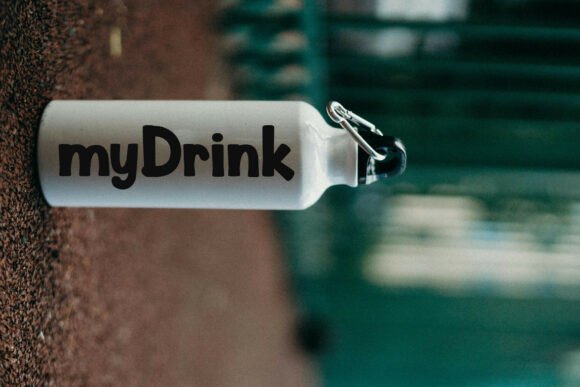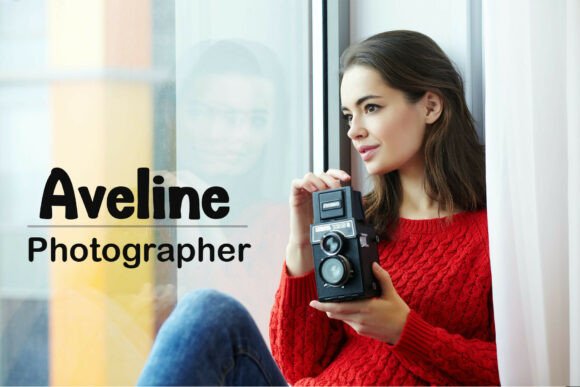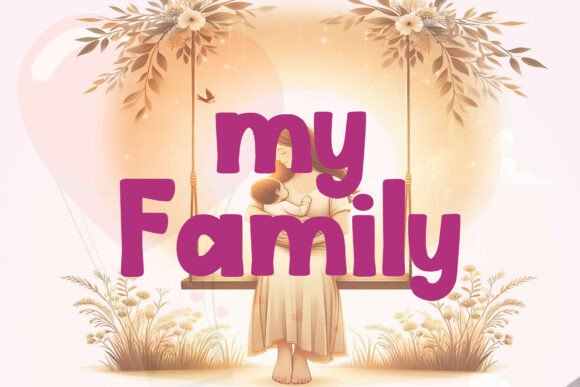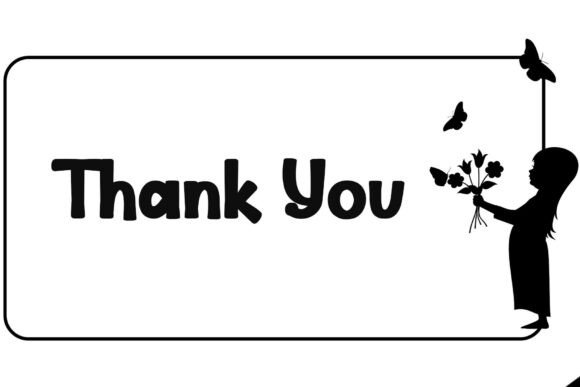
Introduction to Sending Sweet Font
Sending Sweet is a sweet and beautiful handwritten font.
Featuring characters that dance along the baseline, this font will add a luxury spark to any design project you wish to create .
Key Features of Sending Sweet Font